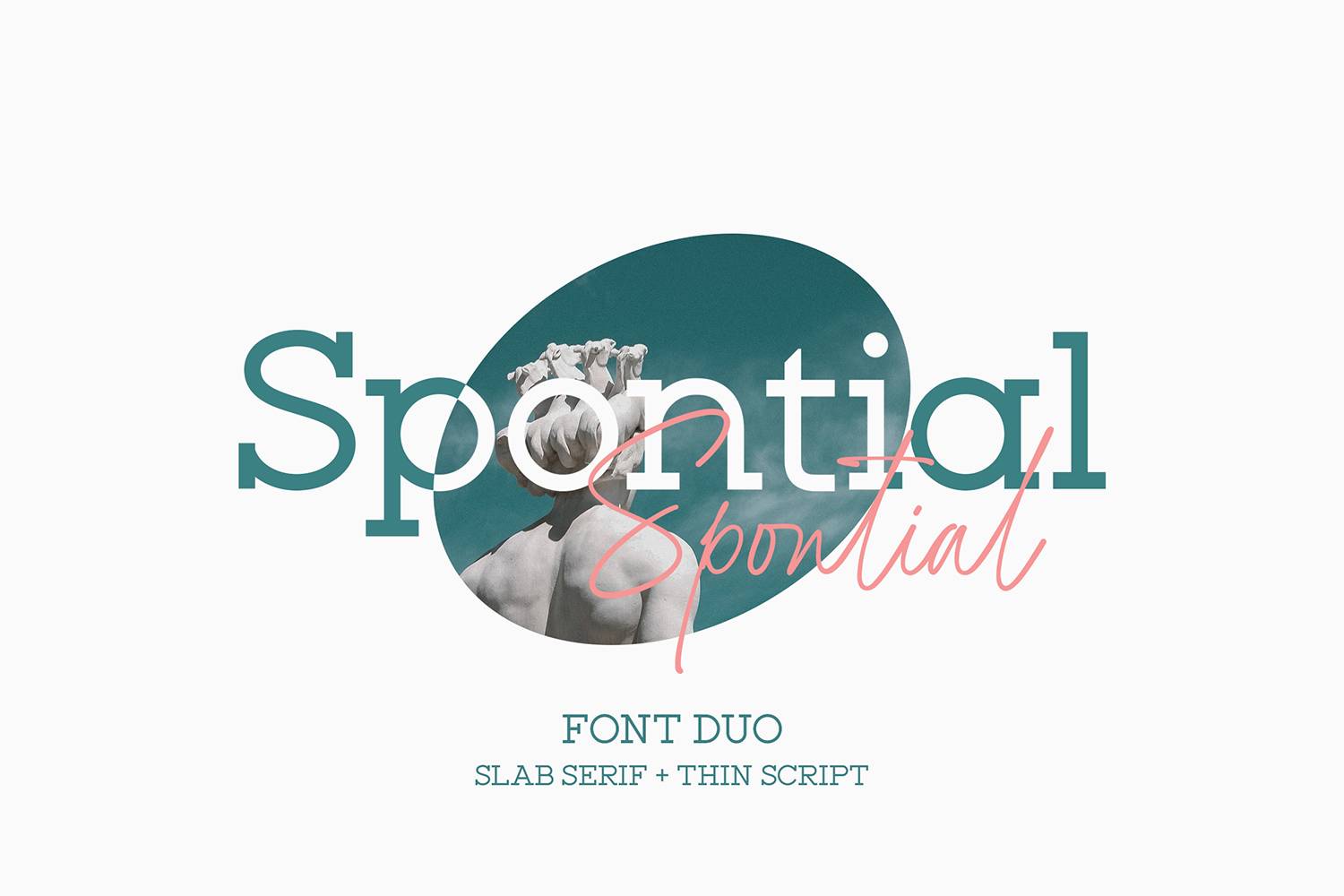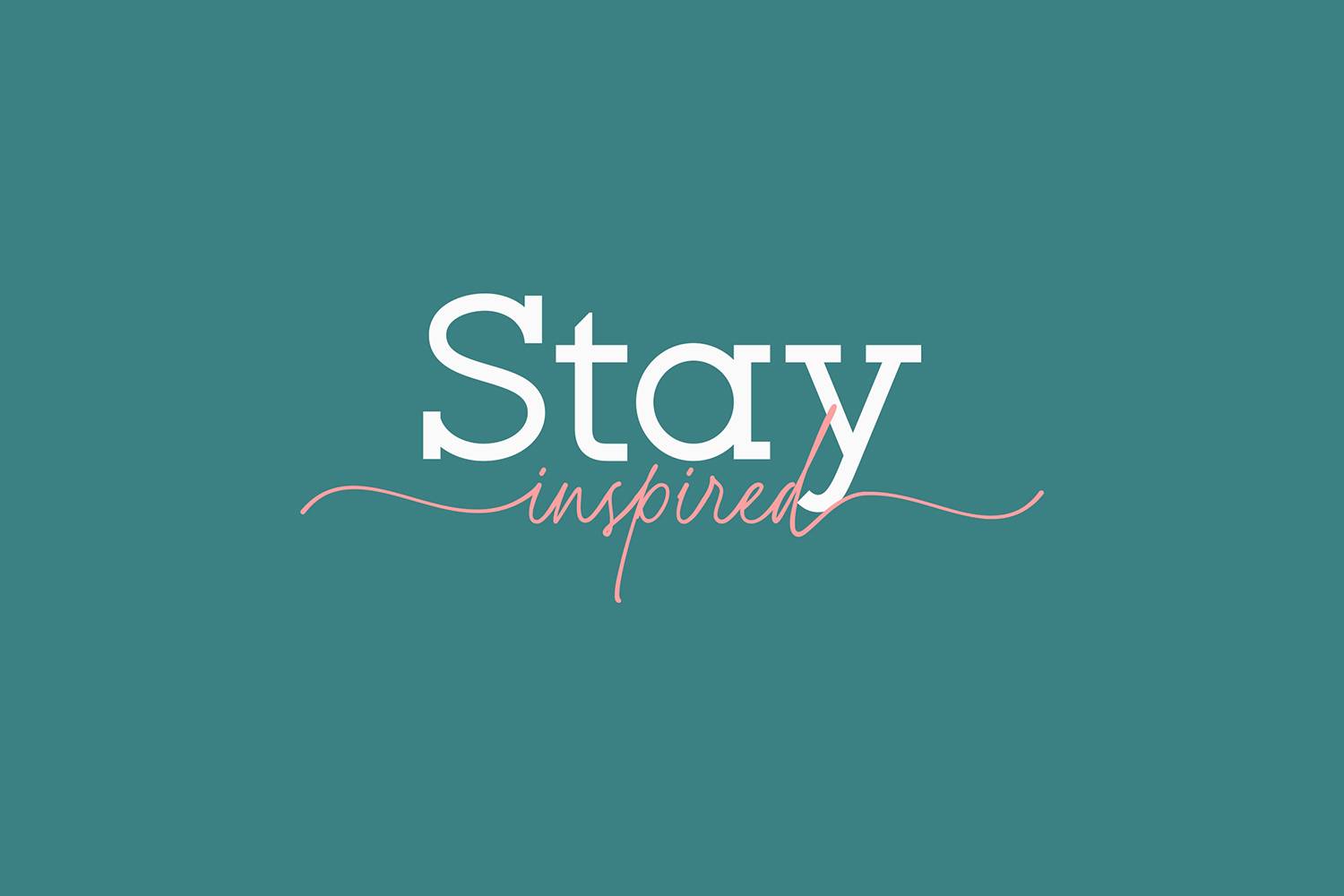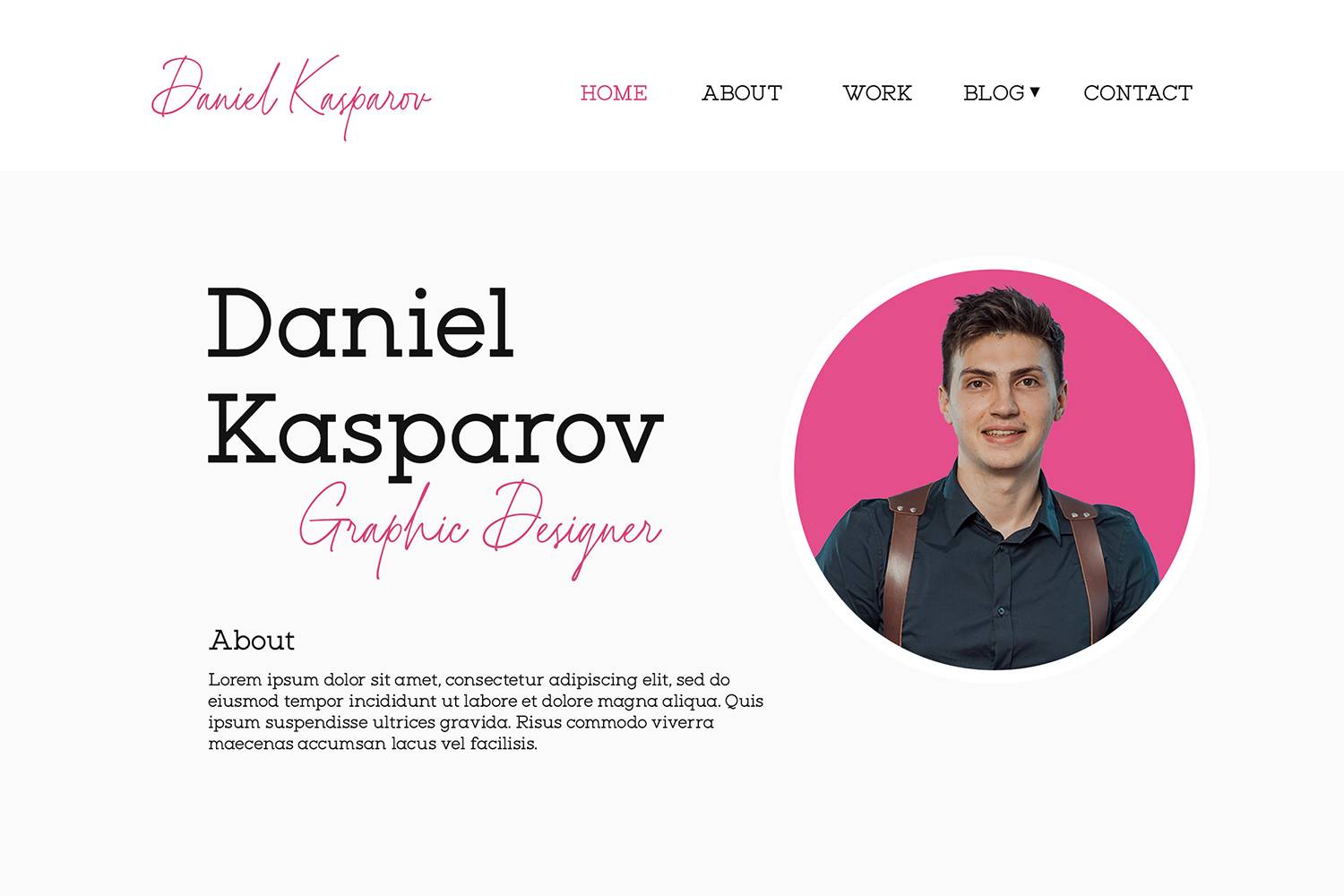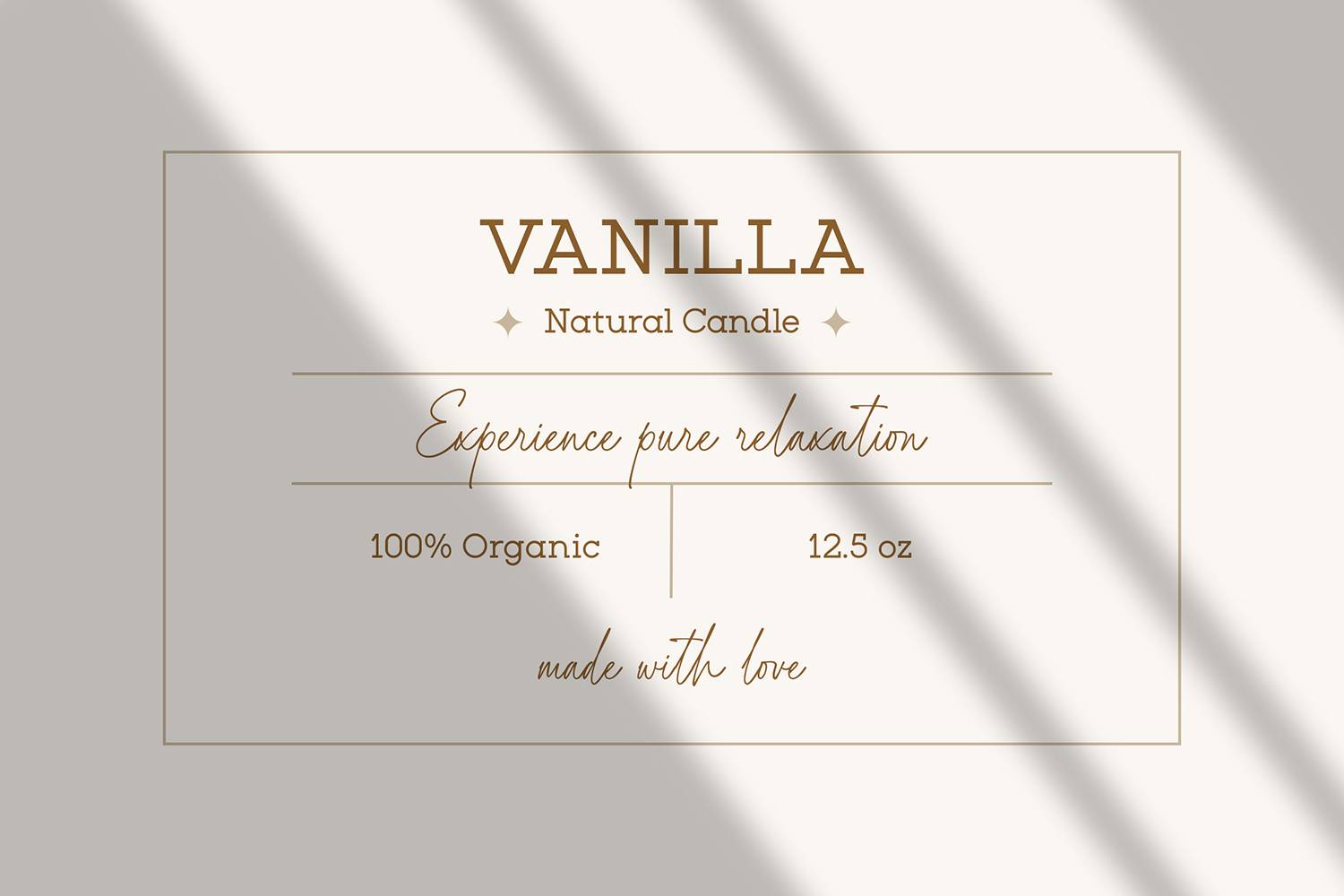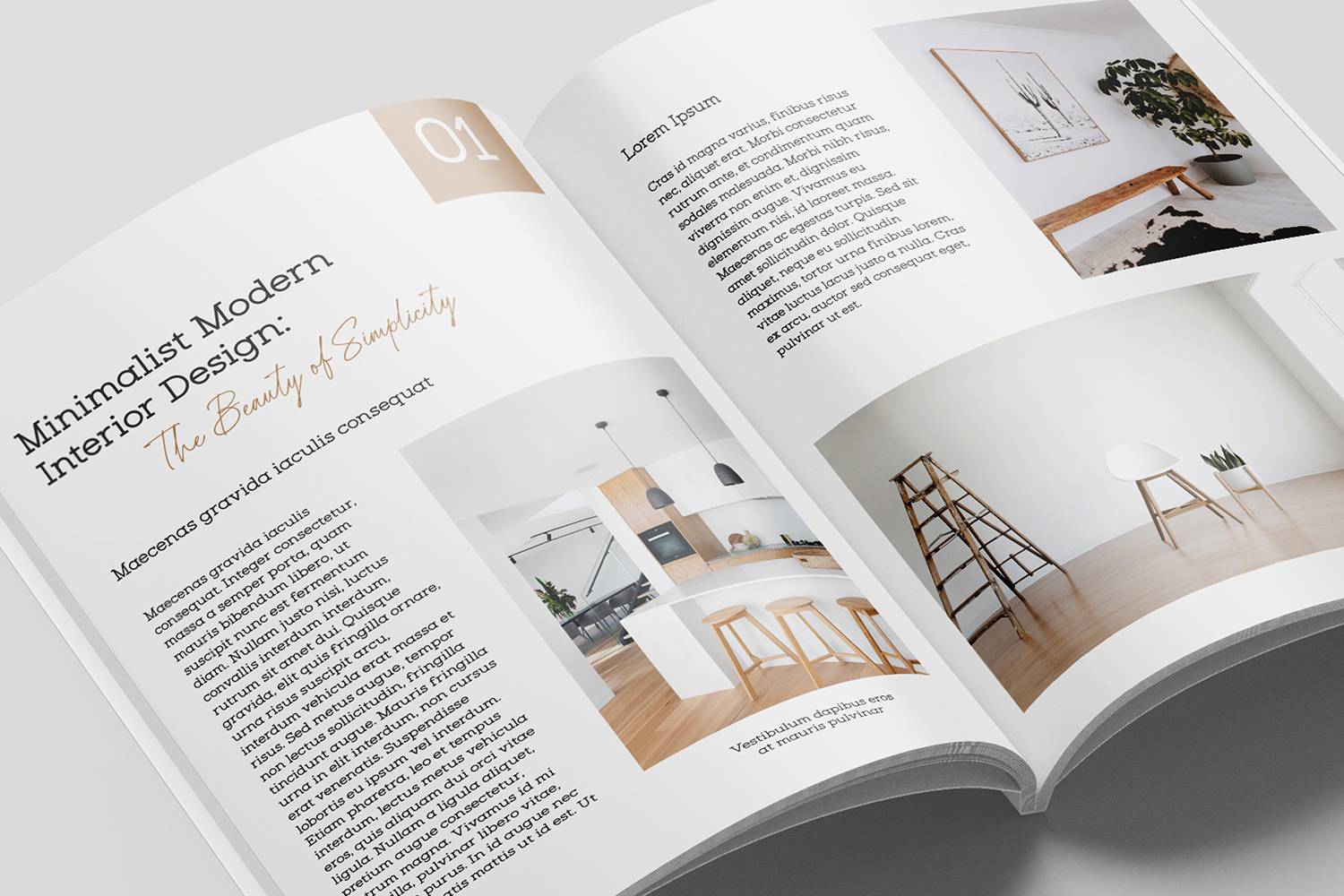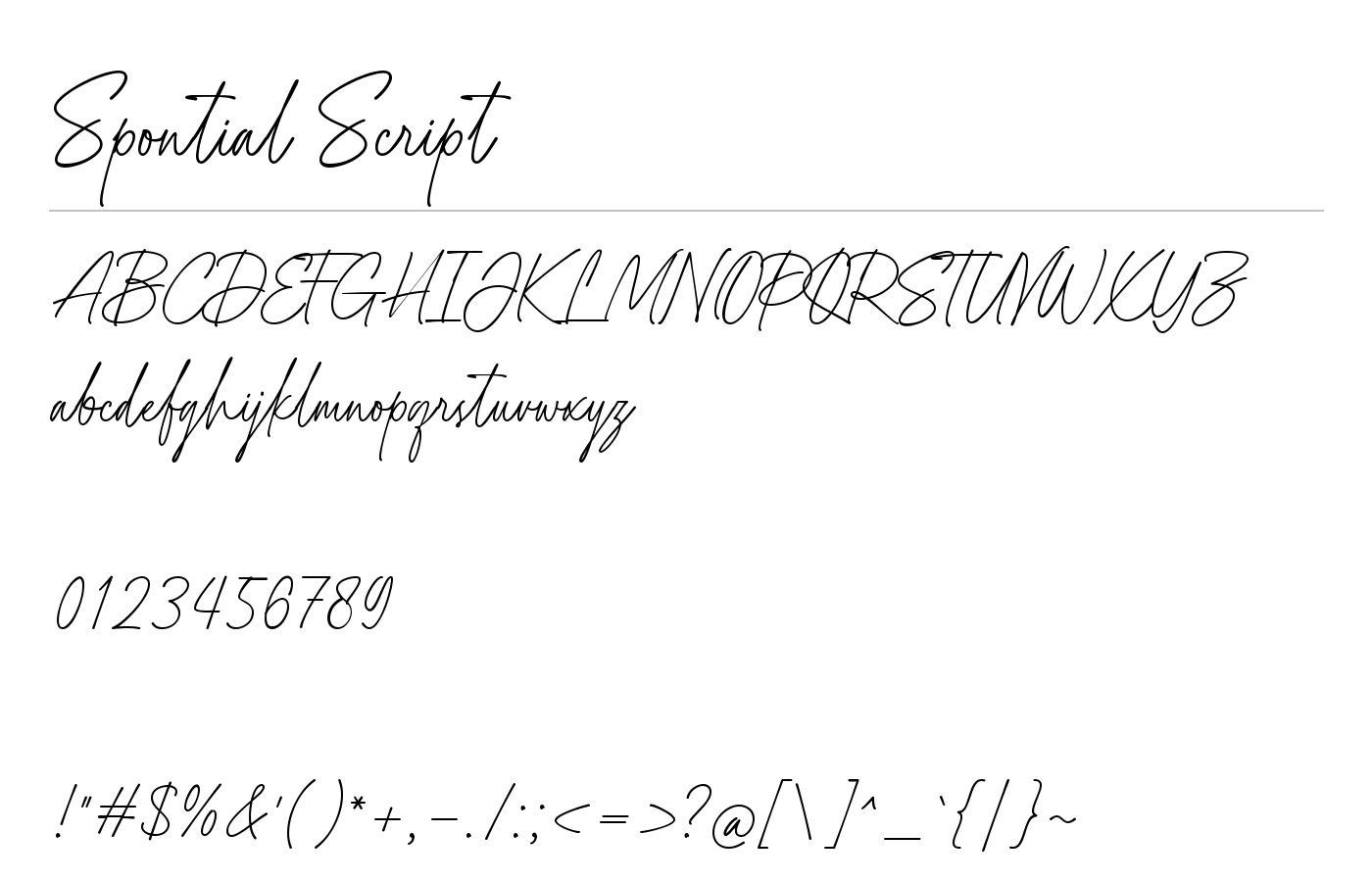
Spontial Script is a delicate, elegant handwritten font characterized by its slender, flowing letterforms and a natural, spontaneous feel. Its fine, consistent stroke weight and smooth curves give it a modern yet personal touch, making it ideal for stylish invitations, branding, and feminine design projects that seek a graceful and approachable vibe.
Spontial Font
About Spontial Font
| Font family | Spontial Font |
| Designer | Dwi Ahidian |